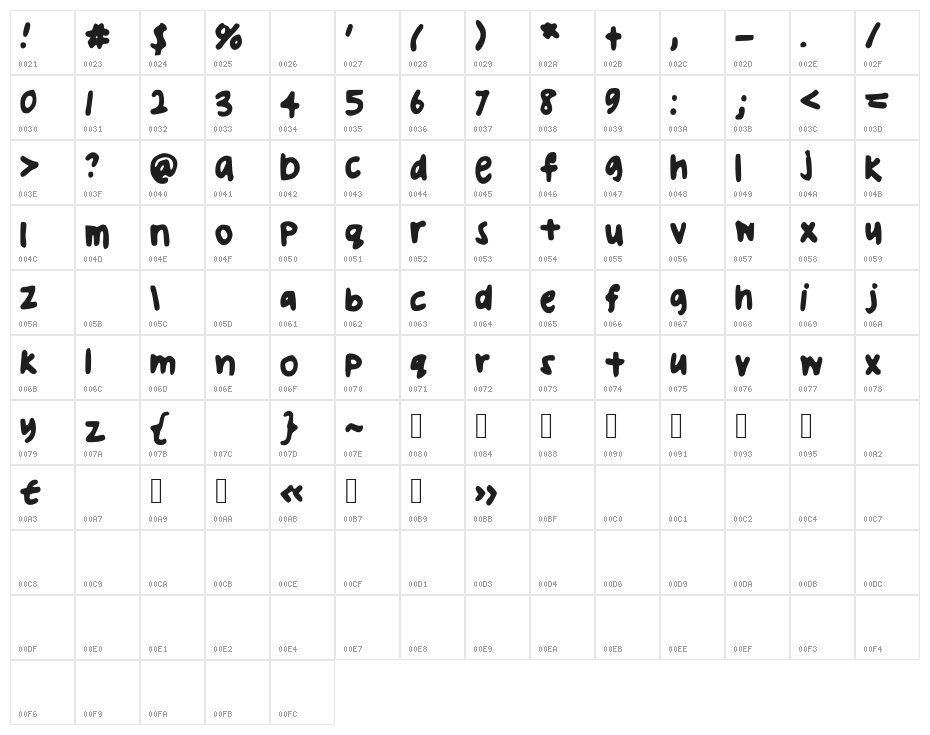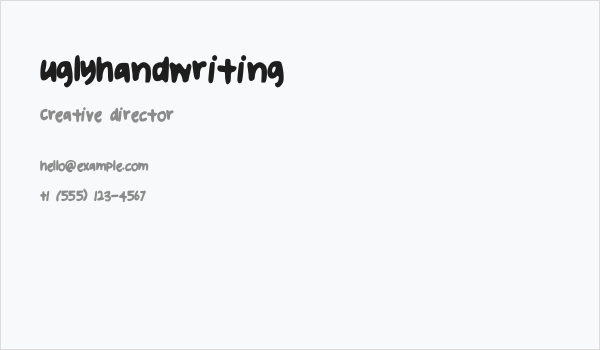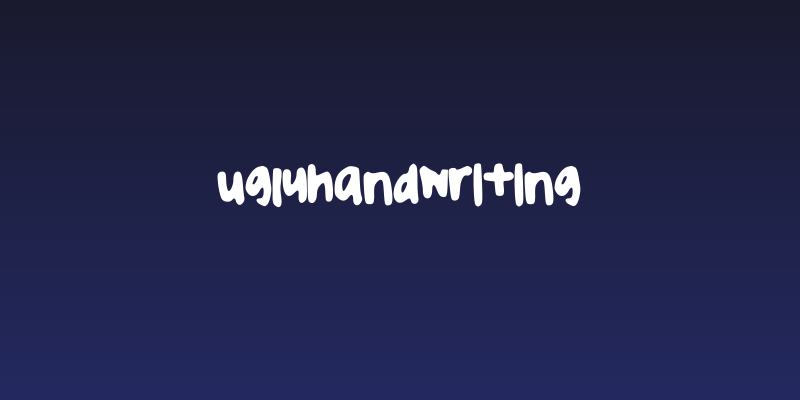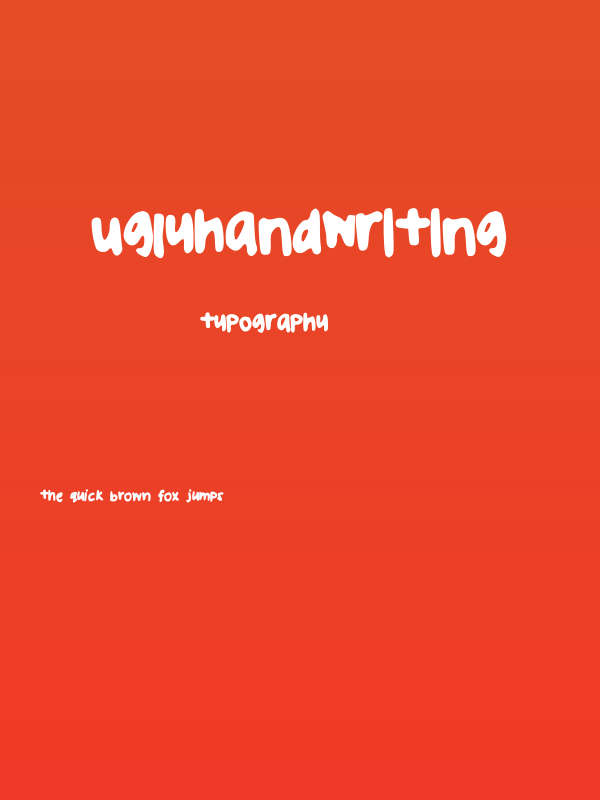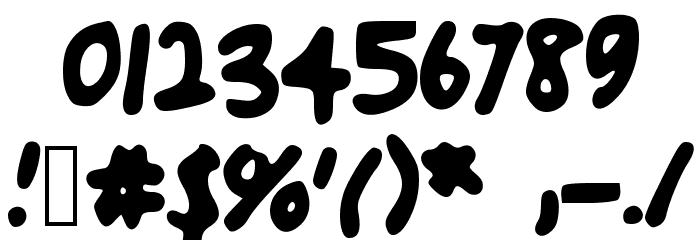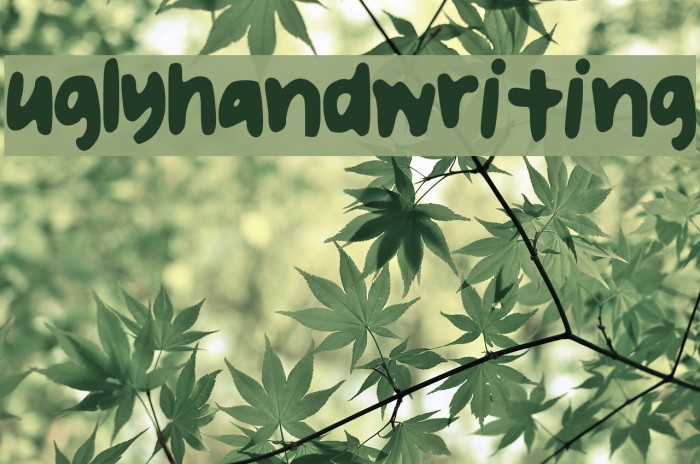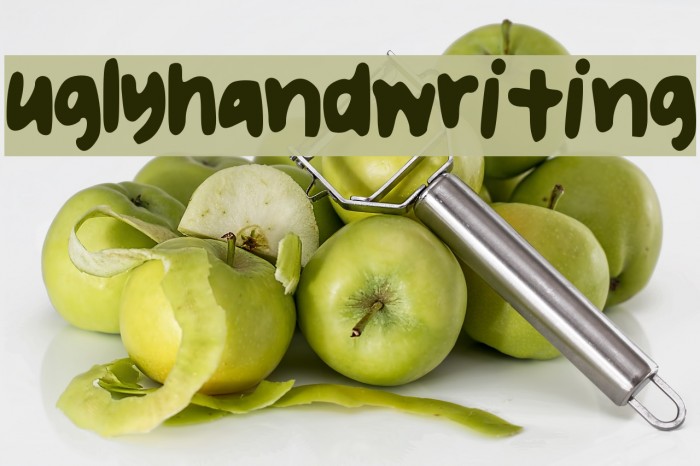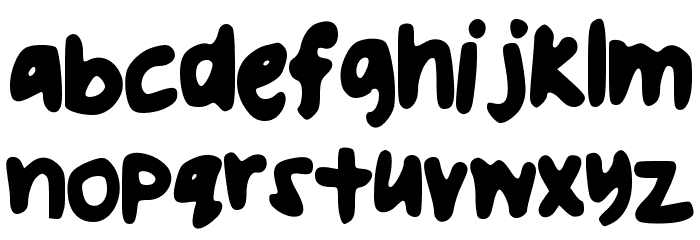
uglyhandwriting Font
uglyhandwriting Description
This playful and bold font features a handwritten style with thick, rounded strokes that give it a casual and friendly appearance. The characters are slightly irregular, adding to the informal and whimsical feel. The uppercase and lowercase letters maintain a consistent style, with a noticeable emphasis on rounded edges and a bubbly form. Numbers and special characters follow the same design principles, ensuring a cohesive look across all glyphs. This font's unique personality makes it stand out, perfect for projects that require a touch of fun and creativity.
| Overall Style | Playful |
| Use Case | Headlines, Logos, Informal Text |
| Proposed Projects | Ideal for children's books, playful branding, greeting cards, and informal event invitations. |